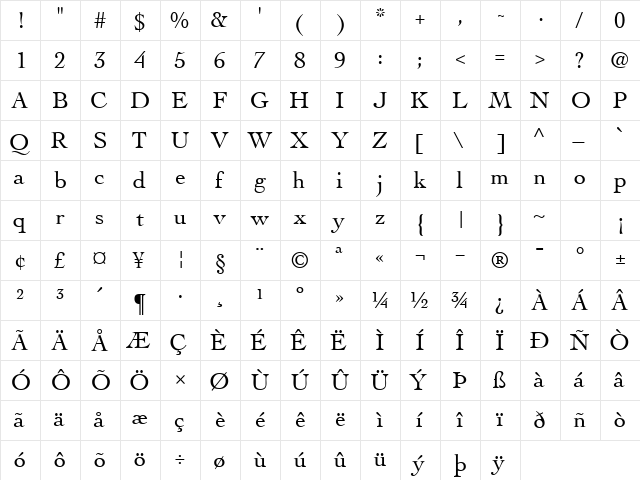
ThesisSSK Regular
Design Context for ThesisSSK Typeface
ThesisSSK offers clean, dependable letterforms without strong stylistic allegiance, making it a practical choice for designers who need flexibility.
Pro Tip: Use ThesisSSK in both headline and body roles to test its range before committing to a single application.